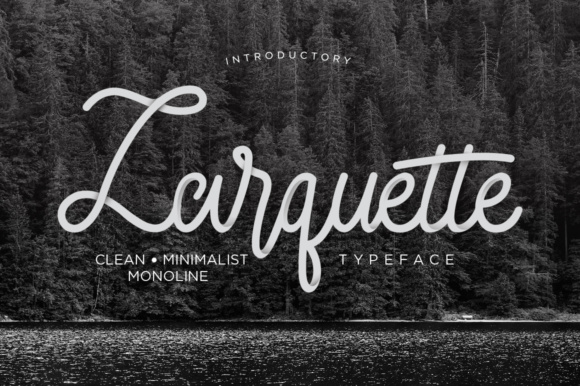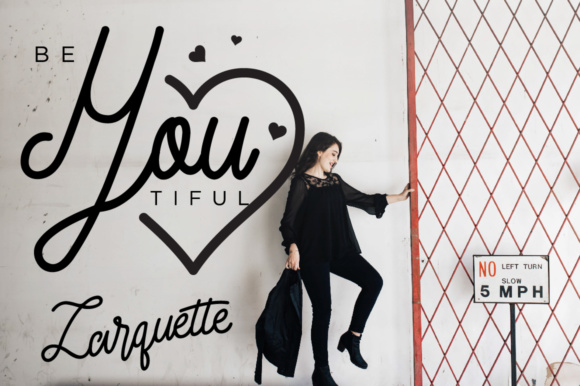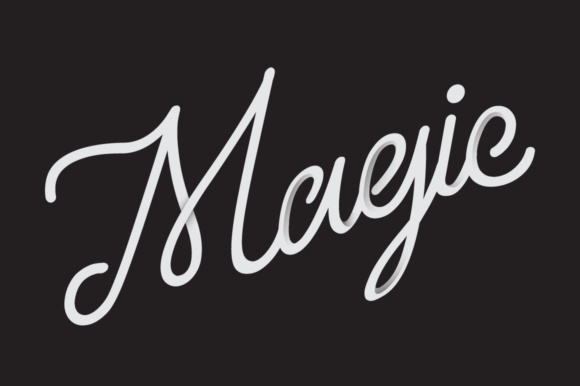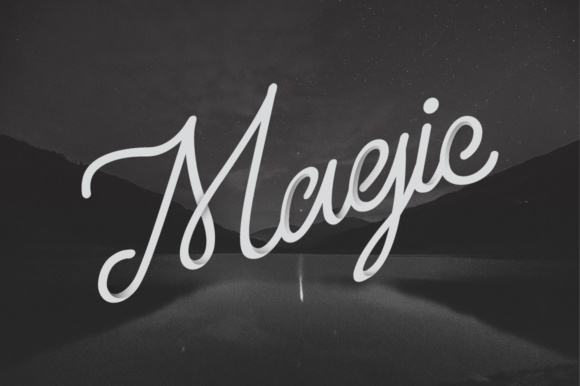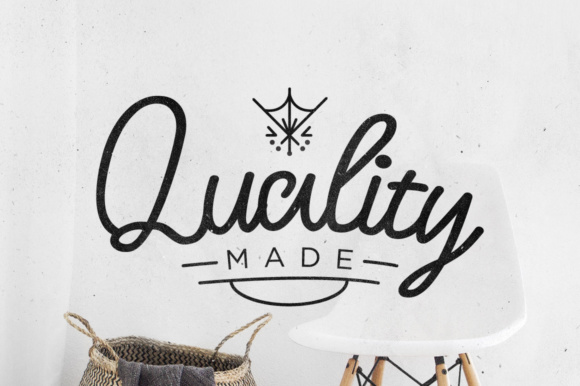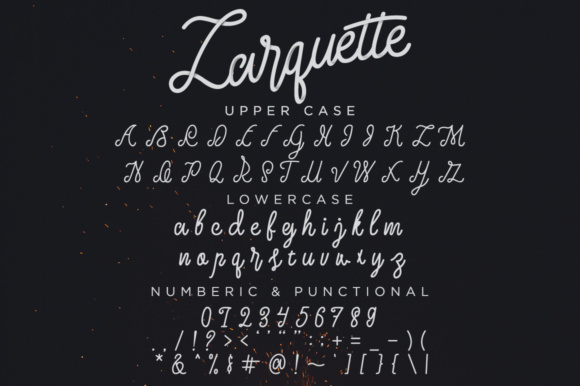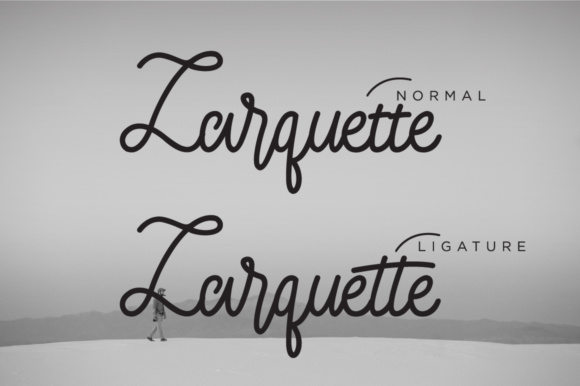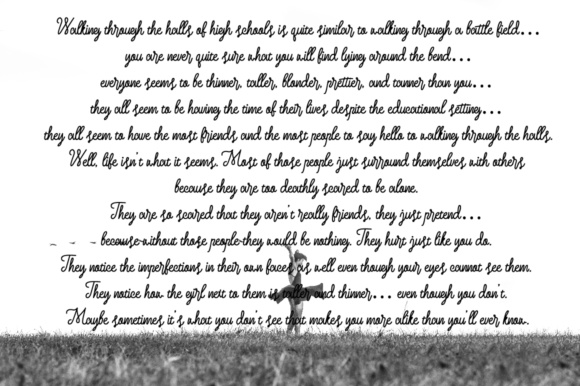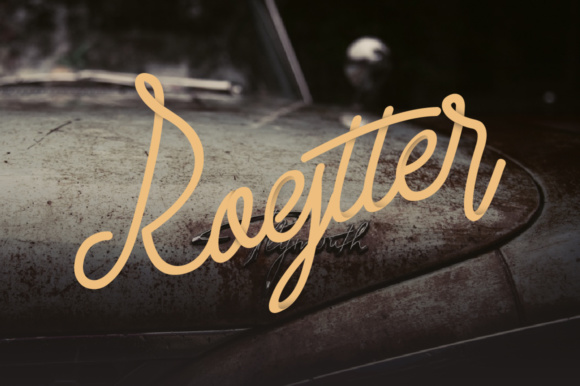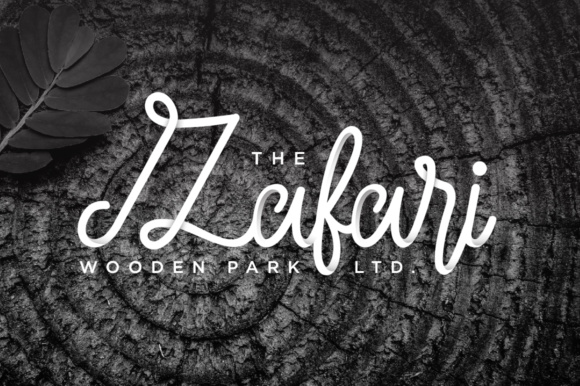
Larquette Font
Larquette is a pretty and sleek monoline font, perfect for use in hip designs that need an organic feel. This font has a dancing baseline and offers up tons of elegance and style.